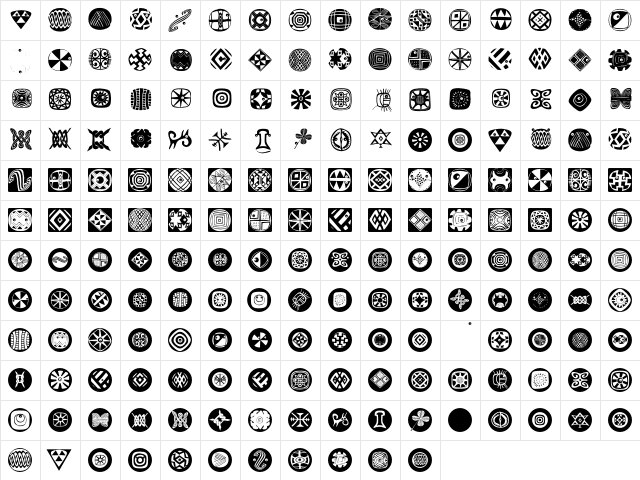
AfroDesigns Regular Font Preview
AfroDesigns Regular
Design Context for AfroDesigns Typeface
AfroDesigns is a composed and adaptable typeface that performs quietly and consistently across a wide range of design contexts.